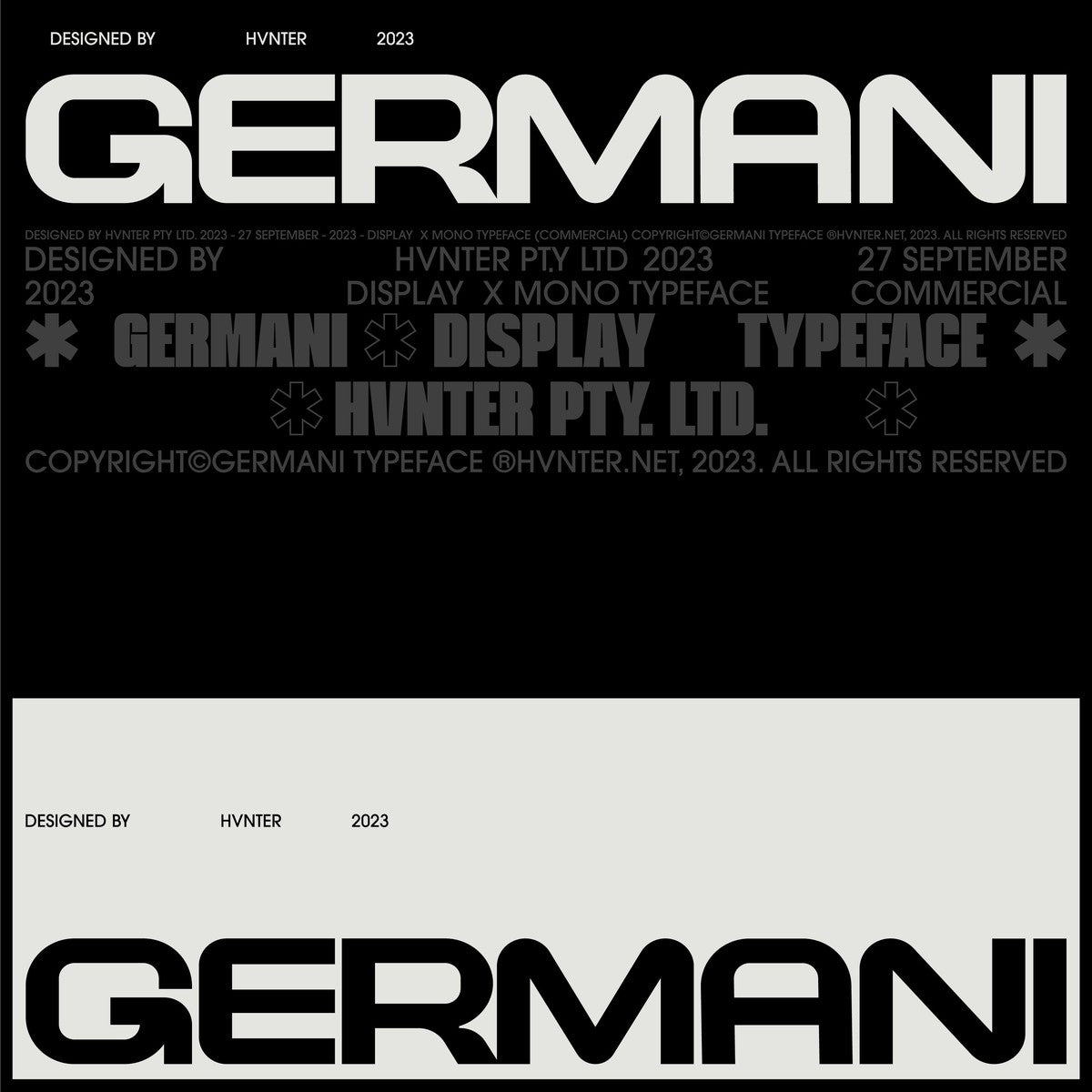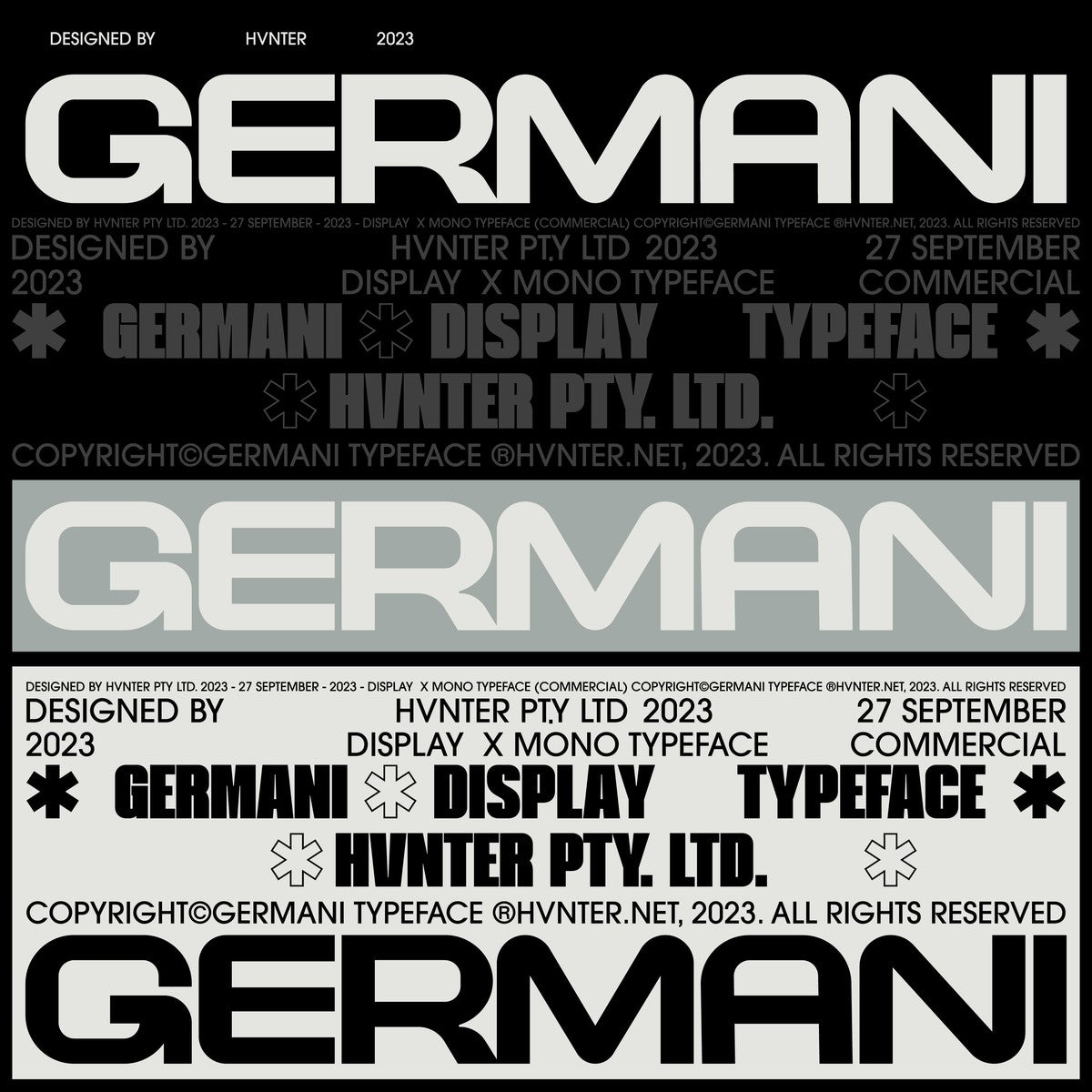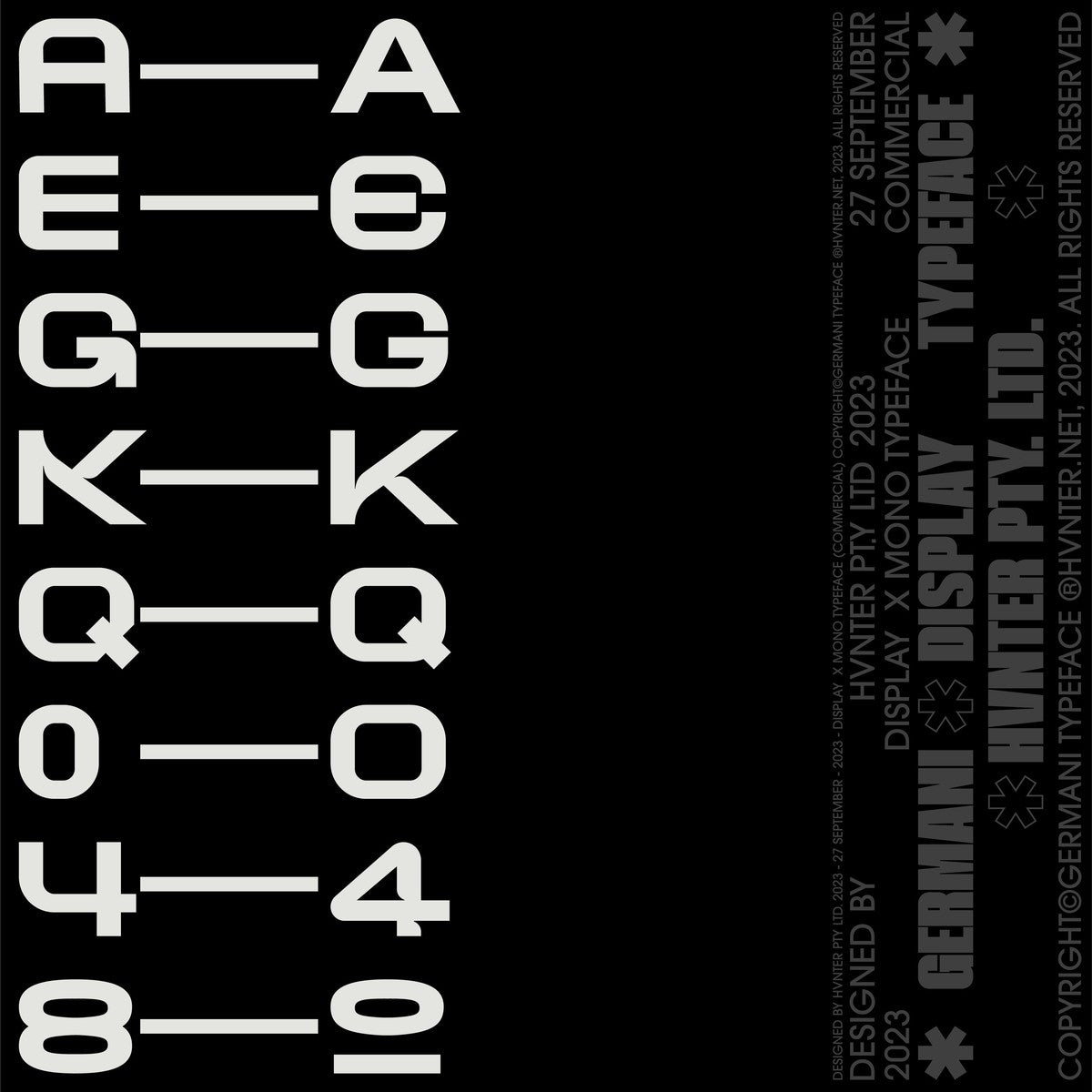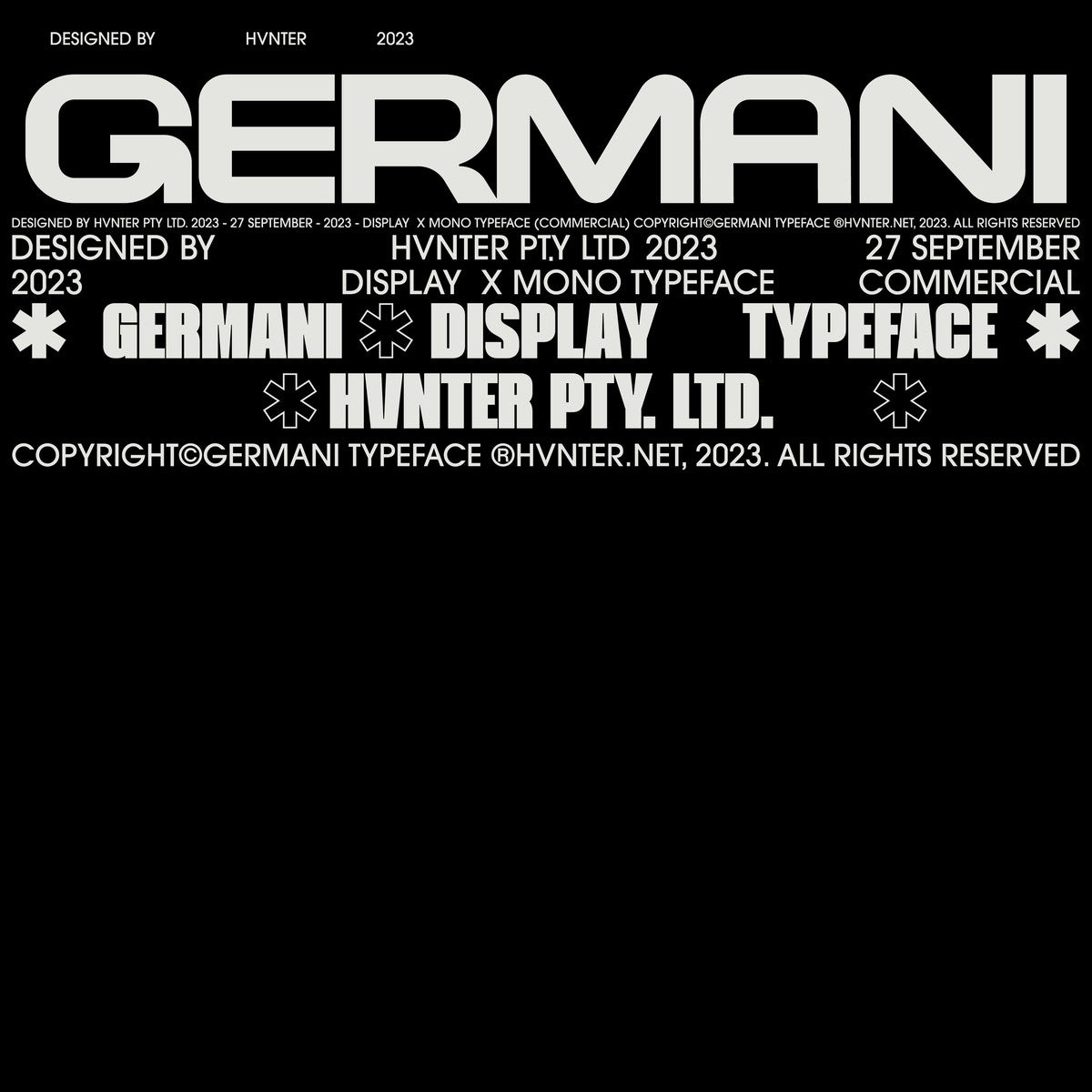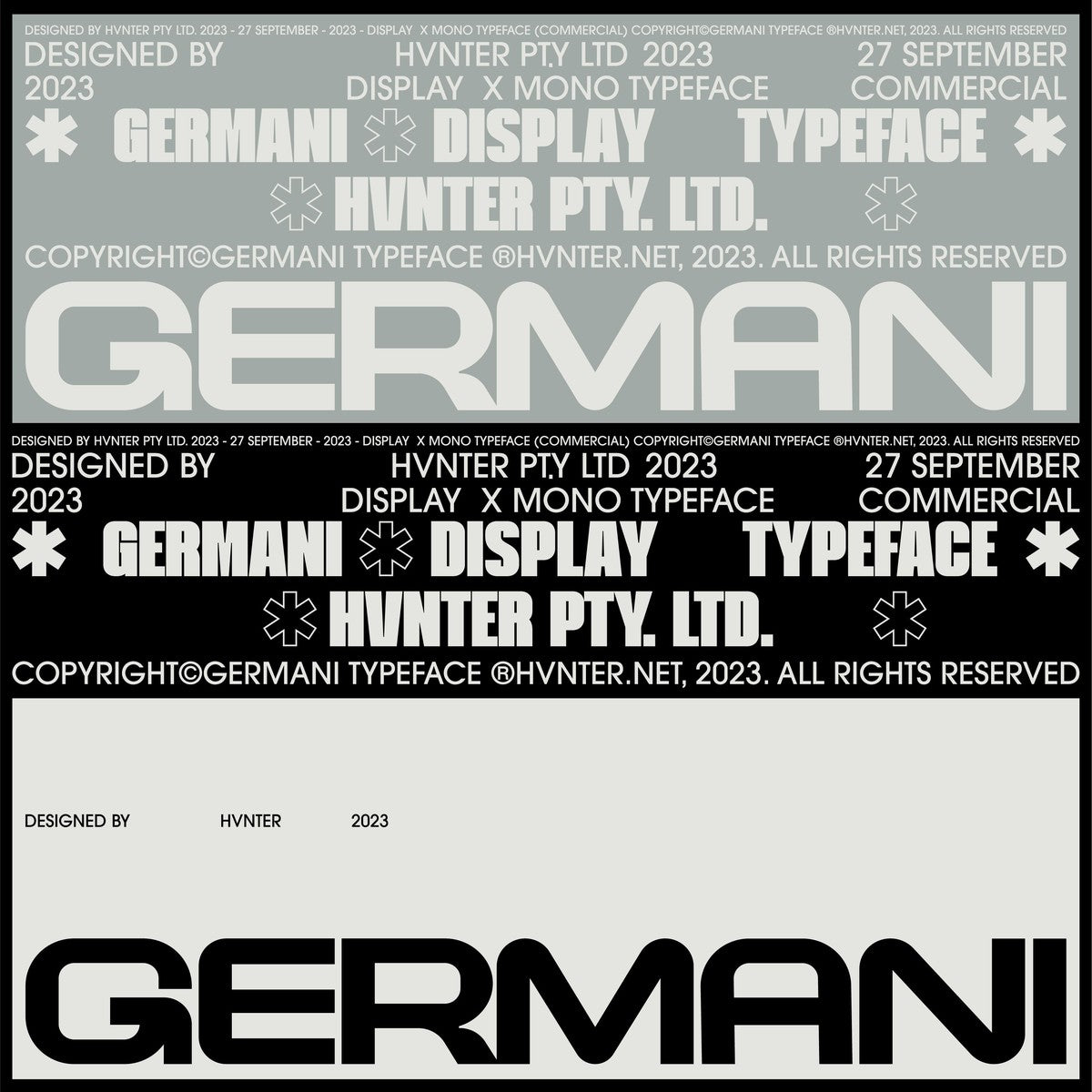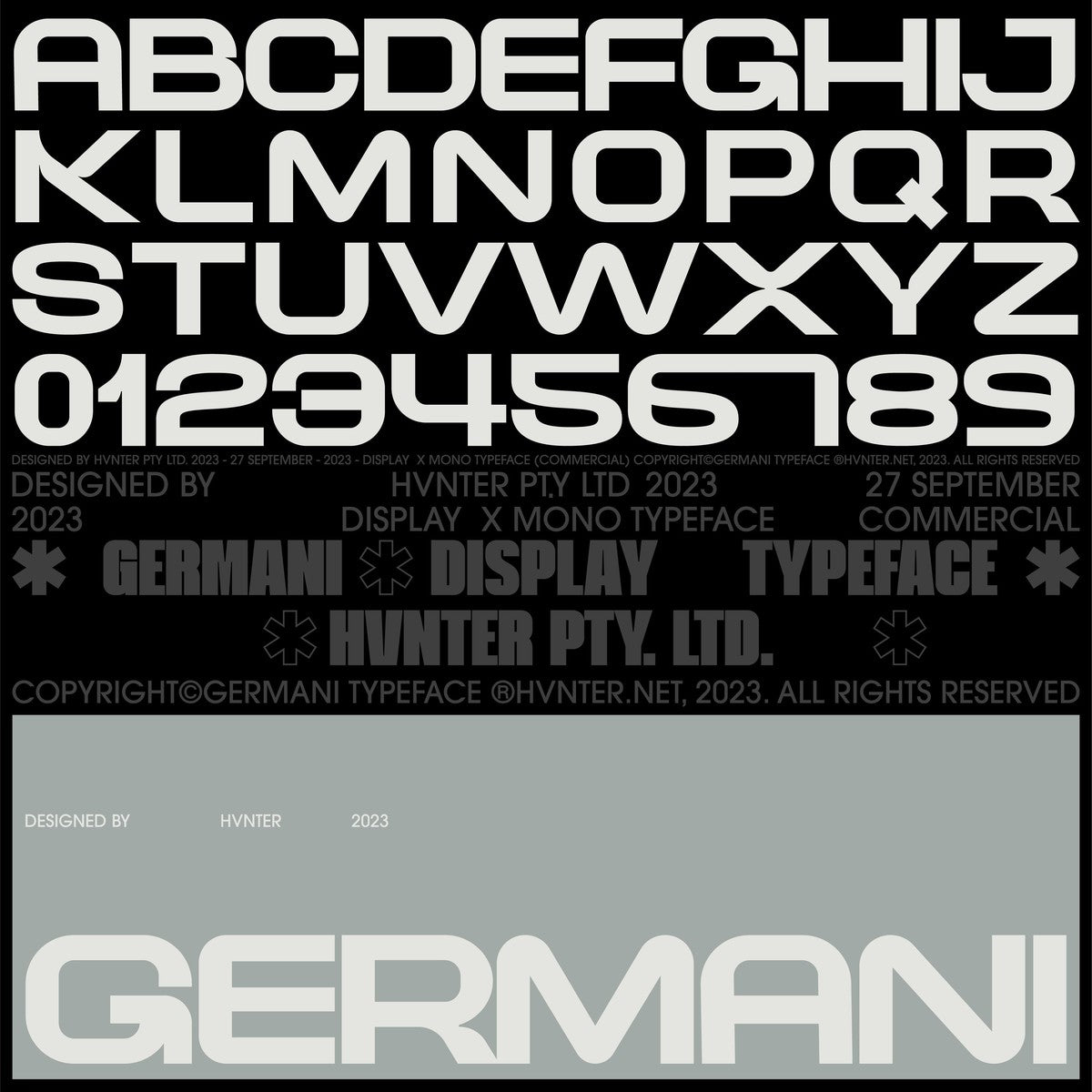
GERMANI Typeface
The GERMANI Typeface is a geometric font that includes A-Z, 0-9, and basic symbols in an .otf font file. It is suitable for type design and logo creation, and is categorized under display and y2k fonts.
Ideal for geometric type design and modern branding projects. Perfect for logos, posters, and digital media, ensuring a bold visual impact that captures attention and enhances communication.